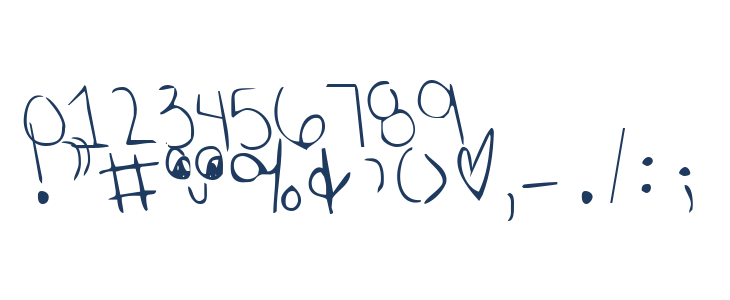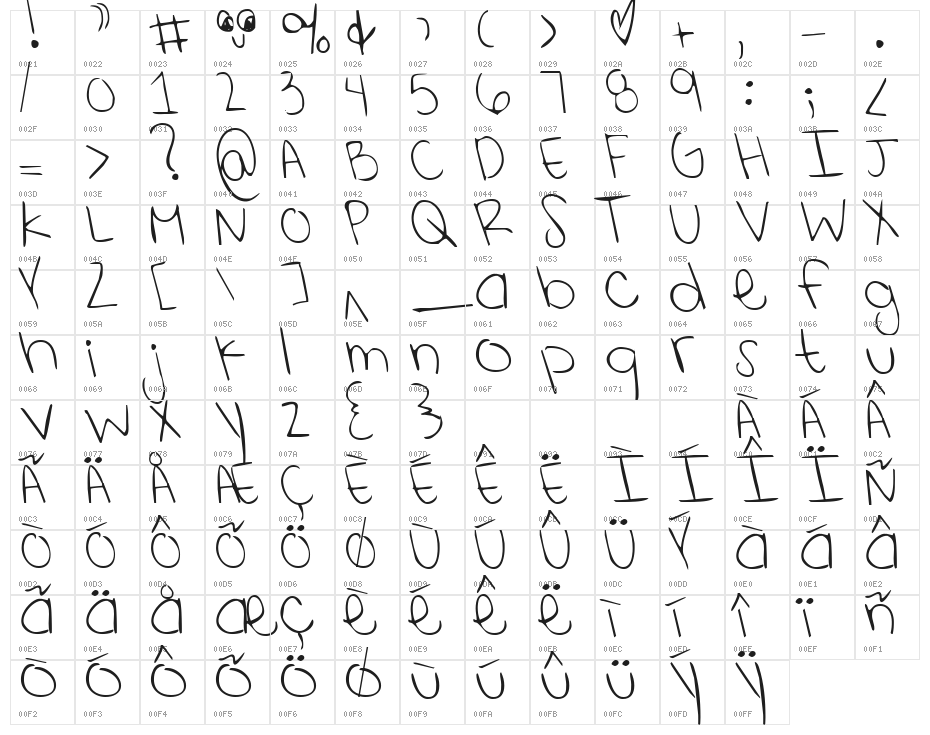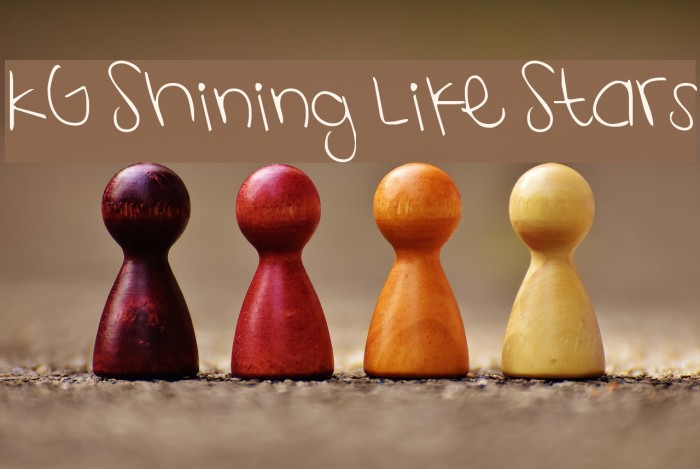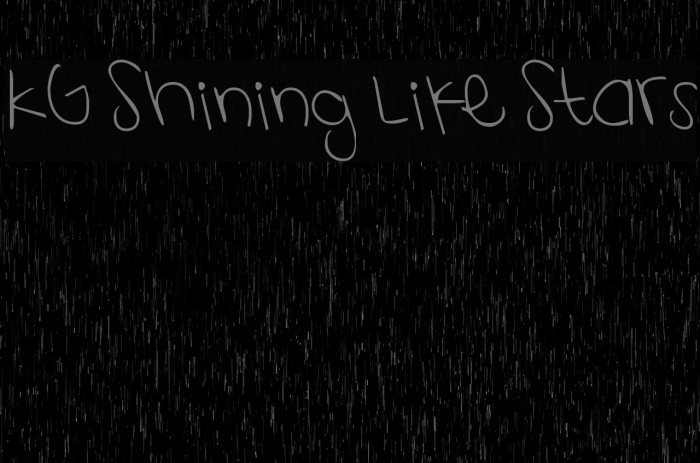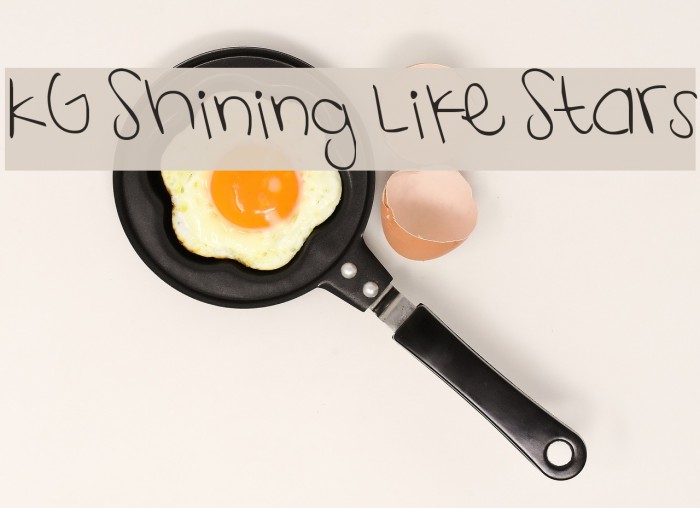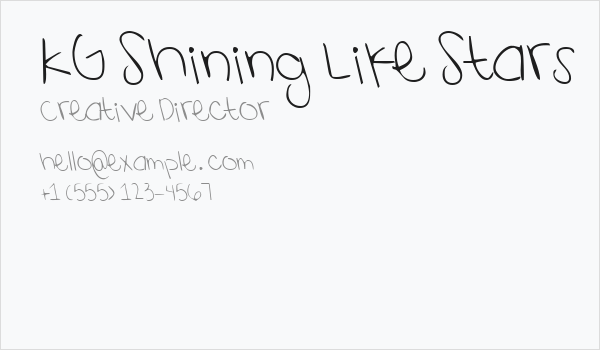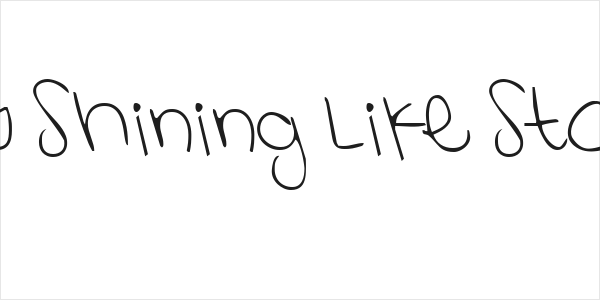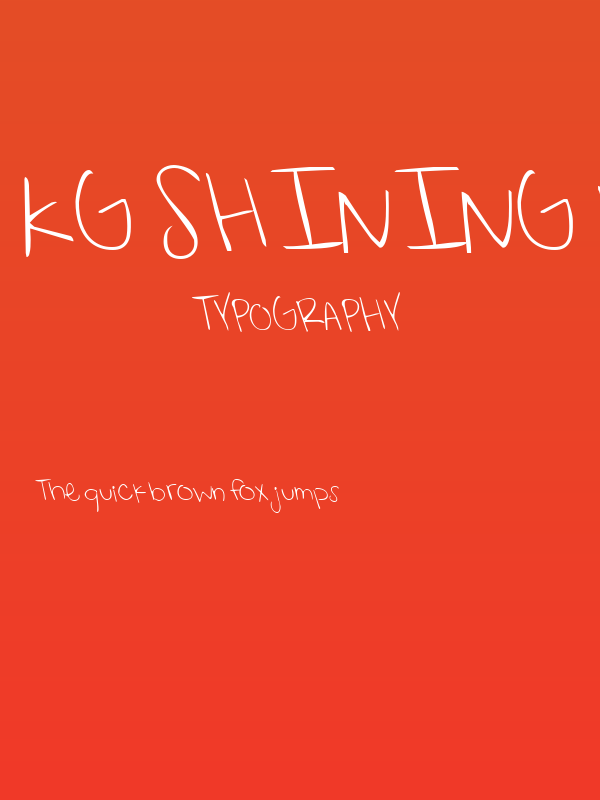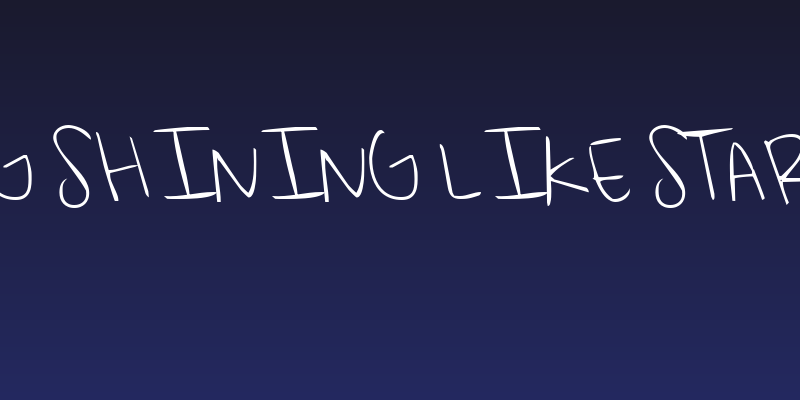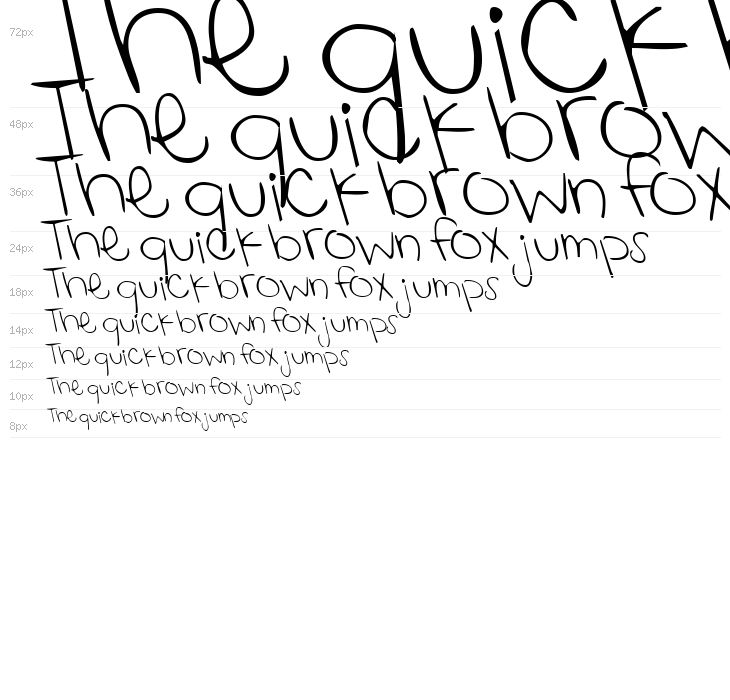
KG Shining Like Stars Font
KG Shining Like Stars Description
This playful and whimsical font features a handwritten style with a casual, informal appearance. The letters are slightly irregular, giving it a charming and approachable feel. The strokes are consistent in thickness, contributing to a cohesive look across all characters. The uppercase letters are tall and slender, while the lowercase letters maintain a similar height, creating a balanced and harmonious design. The numbers and special characters are crafted with the same playful touch, making them ideal for creative projects. The font's unique personality makes it suitable for a variety of uses, from children's books to greeting cards.
| Proposed Projects | Ideal for children's books, greeting cards, playful branding, and creative invitations. |